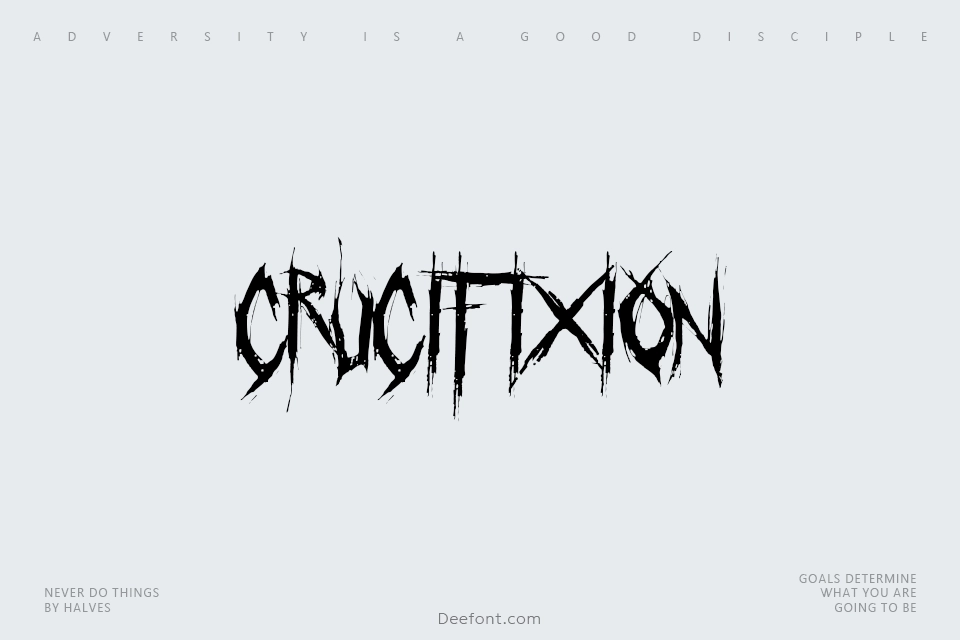
Crucifixion Font
Crucifixion is a bold horror and grindcore-inspired display typeface featuring angular, sharp strokes designed for dramatic impact. Created by Font Monger, this font blends gothic aesthetics with metal music influences, making it ideal for horror-themed projects, death metal posters, and attention-grabbing headlines. With its raw angular letterforms and high-impact presence, Crucifixion brings an intense, darkly evocative visual style to any creative design requiring a strong, foreboding aesthetic.